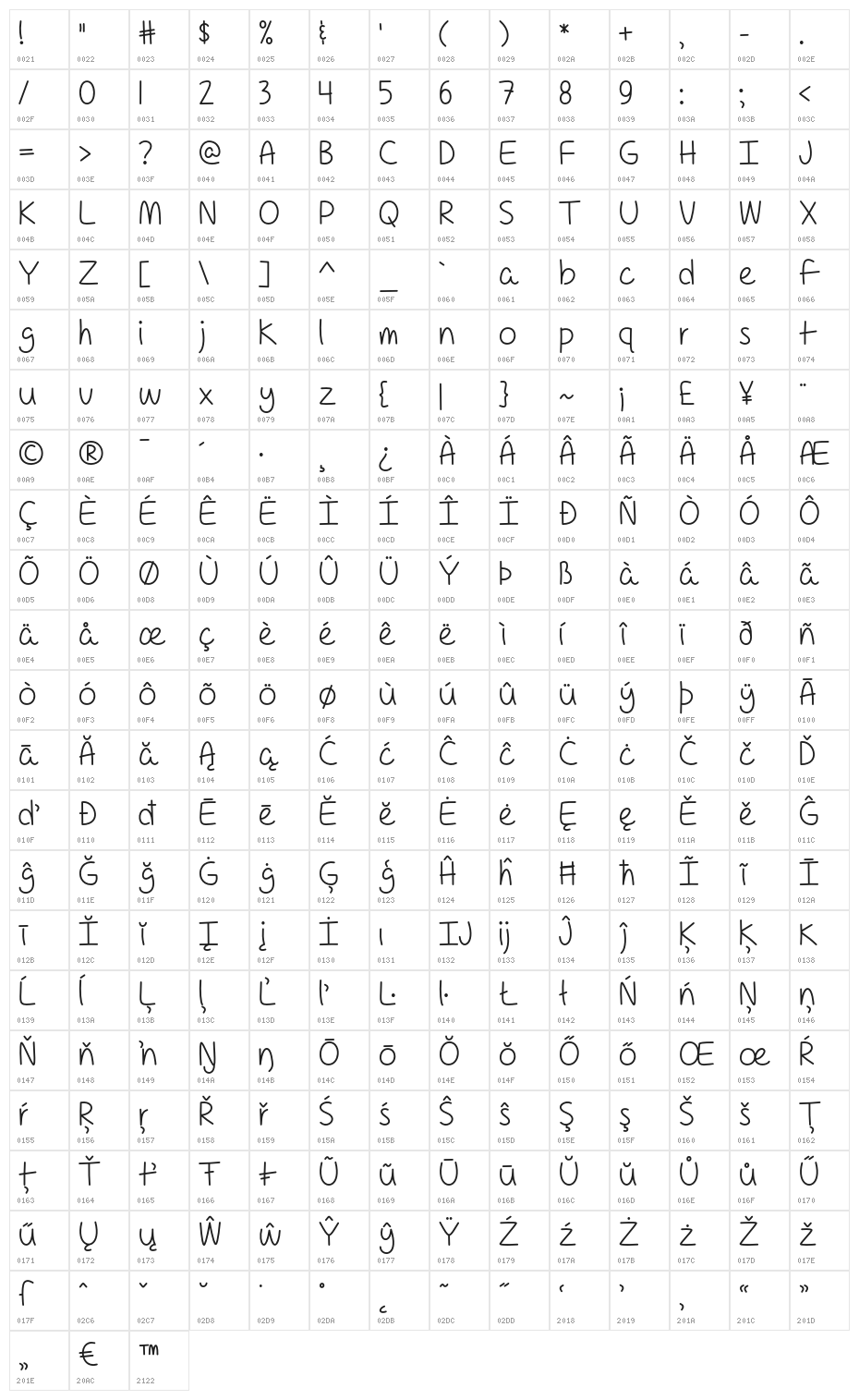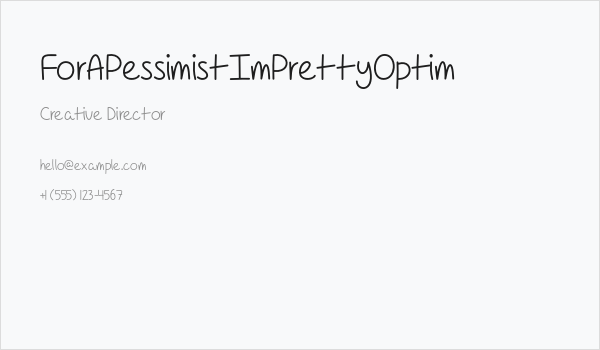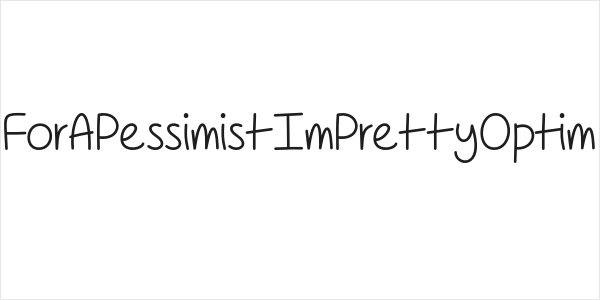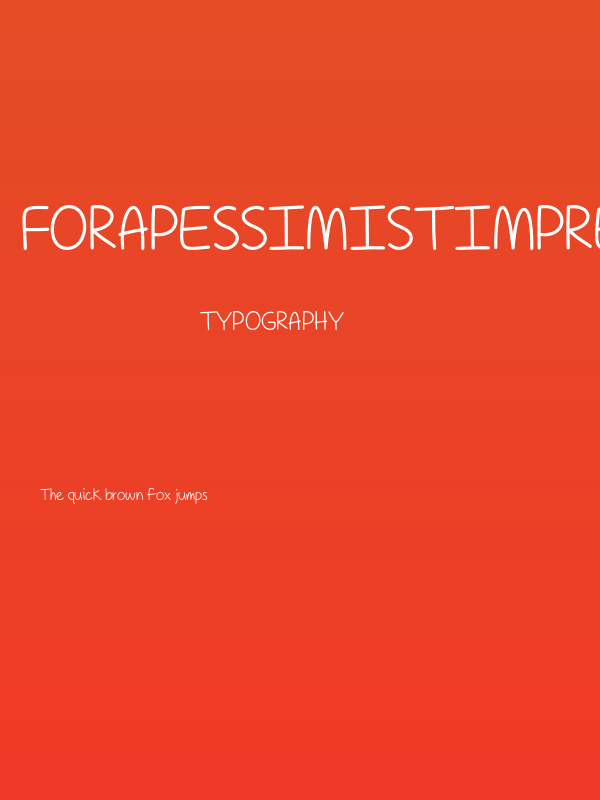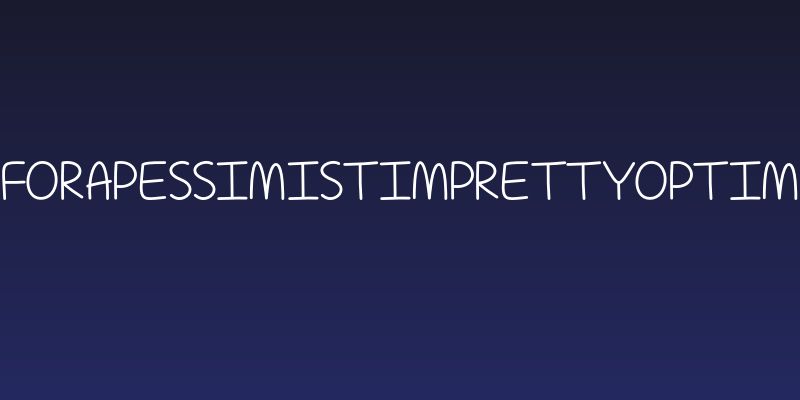
ForAPessimistImPrettyOptim Font
ForAPessimistImPrettyOptim Description
This playful and casual font features a handwritten style with smooth, rounded edges and a friendly appearance. The letters are slightly irregular, adding a personal touch that mimics natural handwriting. The uppercase and lowercase characters maintain a consistent style, with a slight slant that enhances its informal look. The numerals and special characters are crafted to match the overall aesthetic, making it versatile for various uses. Its simplicity and charm make it suitable for projects that require a personal or approachable feel.
| Overall Style | Casual |
| Use Case | Headlines, Informal text, Personal projects |
| Proposed Projects | Ideal for greeting cards, children's books, personal blogs, and informal branding. |